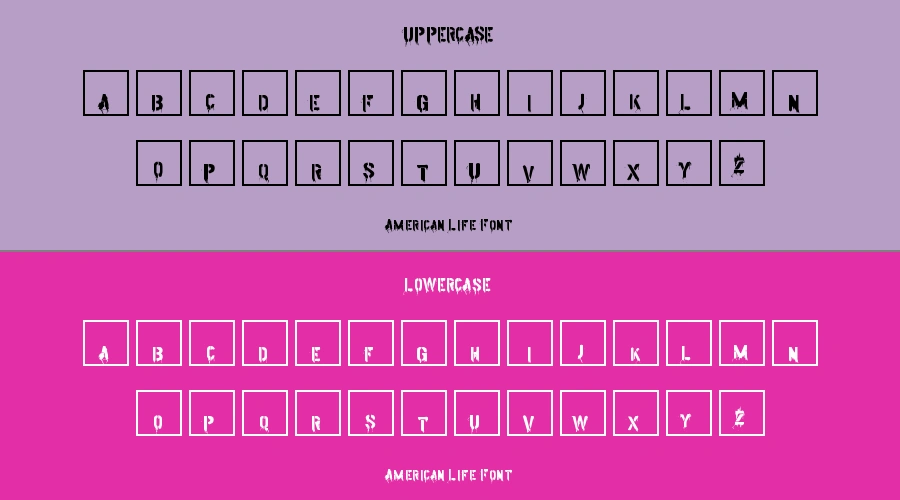
About American Life Font
American Life Font embodies typographic excellence through its masterful combination of playful elements and authenticity. Created for scientific journals, this typeface delivers exceptional distinctiveness and sophistication across all applications. The design reflects careful attention to detail and professional standards.
Advanced capabilities include distinctive curved brackets and versatile dingbat elements, giving designers creative control. When used in corporate communications, American Life Font exhibits remarkable reproduction fidelity. The harmonious balance between x-height and engineering heritage sets this typeface apart.